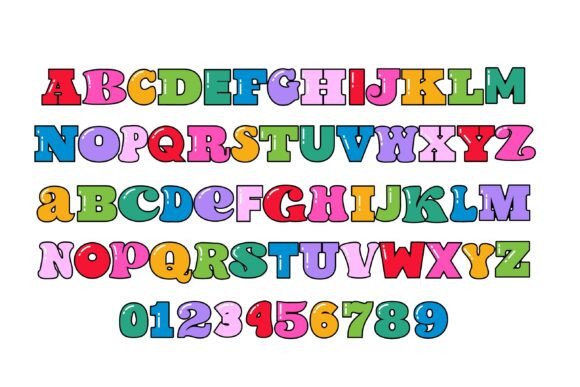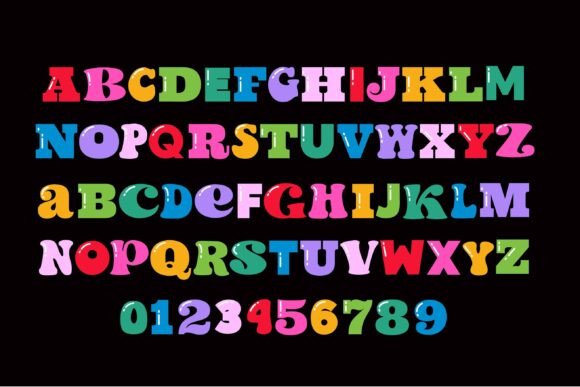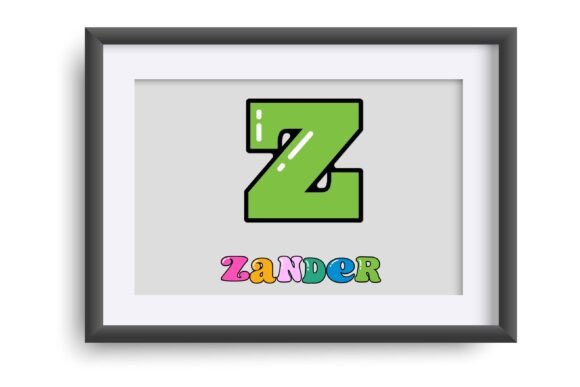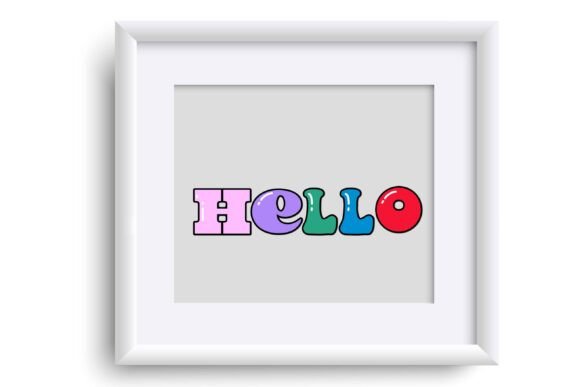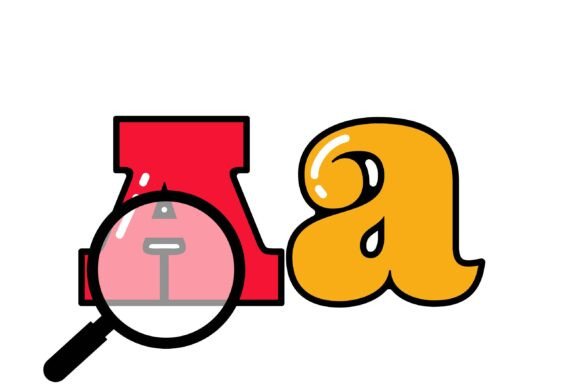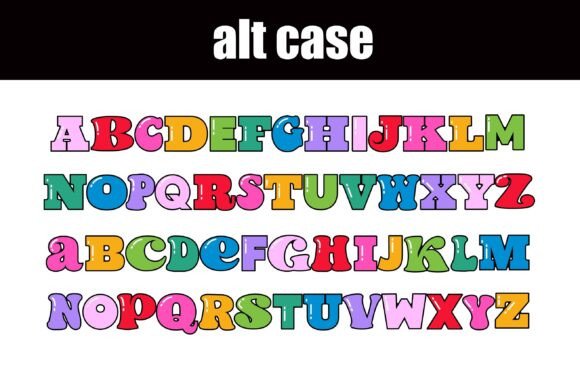
Discovering the Magic of Rainbow Toonz Font
As a designer, there’s nothing quite like that moment when a project comes together and you step back to admire your handiwork. The colors are just right, the typography is on point, and the overall vibe is exactly what you envisioned. But sometimes, even with the best design skills, a project can feel a bit… dull. That’s where the Rainbow Toonz Font comes in – a game-changing design resource that adds a pop of personality to any creative project.
With its retro-style, serif font and vibrant rainbow color palette, the Rainbow Toonz Font is the perfect addition to any design arsenal. Whether you’re working on a simple text logo or a more complex design, this high-quality font is sure to elevate your work and make it stand out from the crowd.
Key Features of Rainbow Toonz Font
- High-quality design resource for creative projects, suitable for various applications such as graphics, animations, and more.
- Unique, colorful design that can add a playful touch to any project, featuring a transparent background for easy customization.
- Features a large character set, including uppercase and lowercase letters, numbers, and special characters.
- Perfect for designers and artists looking for a fun and creative font to enhance their work, ideal for projects requiring a playful and colorful touch.
Honest Review: Rainbow Toonz Font
I recently had the opportunity to work with the Rainbow Toonz Font, and I must say it’s been a wild ride. This font is perfect for those high-quality, creative projects that need a bit of extra flair.
Here are some of the things that work well: ✨
- Highly customizable: The Rainbow Toonz Font offers a wide range of options for customization, making it easy to fit in with any design resource.
- Transparent background: The font’s transparent background makes it easy to layer and composite with other design elements.
However, there are a few limitations to be aware of: ⚠️
- Limited font styles: While the font offers a wide range of customization options, it’s limited to a few basic font styles.
- May not be suitable for formal projects: The font’s playful, whimsical nature may not be suitable for more formal or professional projects.
Overall, I’m impressed with the Rainbow Toonz Font. It’s a great addition to any design library, and it’s perfect for those creative projects that need a bit of extra flair. Just be aware of its limitations, and you’ll be golden.
Experiment with different font sizes, colors, and styles to create a unique design. Use the font with a transparent background to create a visually appealing design resource. This font is perfect for a creative project that requires a high-quality design.
The Rainbow Toonz Font is perfect for designing invitations, social media graphics, and other creative projects that require a unique and eye-catching design. It’s also great for creating a design resource that can be used across multiple platforms.